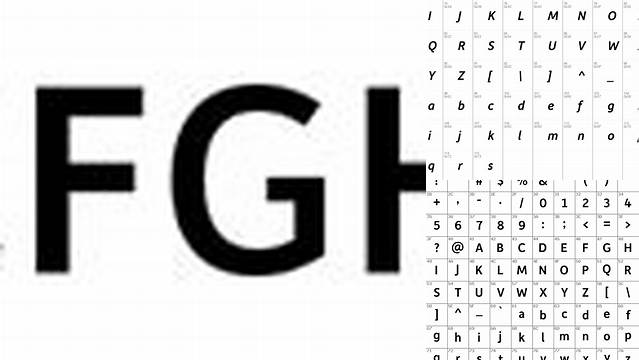
Are you looking to enhance your design projects with a modern, versatile typeface? Look no further! The Depot New Medium font is a fantastic option, offering a blend of clarity and style that can elevate various applications, from branding to editorial design. In this article, we'll dive deep into everything you need to know about this font, including where to find it for free, its key features, and how to make the most of it in your creative endeavors. So, let's get started and explore the world of Depot New Medium!
What is Depot New Medium Font?
Let's kick things off by understanding what the Depot New Medium font actually is. This typeface is part of the Depot family, known for its clean lines and contemporary aesthetic. The "Medium" weight strikes a perfect balance, providing enough boldness to stand out without being overwhelming. This makes it incredibly versatile for a wide range of uses.
Key Characteristics:
- Clean and Modern: The font features a crisp, uncluttered design, making it suitable for modern and minimalist projects.
- Balanced Weight: The medium weight ensures readability and visual impact, working well in both headings and body text.
- Versatile Use: From branding and logos to websites and print materials, Depot New Medium adapts seamlessly.
- Professional Look: Its refined appearance lends a touch of professionalism to any design.
Why Choose Depot New Medium?
Choosing the right font can make or break a design. Depot New Medium offers several advantages:
- Readability: Its clear letterforms ensure excellent readability, even at smaller sizes.
- Versatility: It works well in a variety of design contexts, saving you the hassle of searching for multiple fonts.
- Modern Aesthetic: Its contemporary look helps keep your designs fresh and up-to-date.
- Professional Appeal: It adds a touch of sophistication and credibility to your projects.
When you're aiming for a design that communicates clearly and looks polished, Depot New Medium is a solid choice. Whether you're designing a website, creating marketing materials, or working on a branding project, this font can help you achieve a professional and modern look. The balanced weight and clean lines make it a reliable option for ensuring your message is conveyed effectively and stylishly.